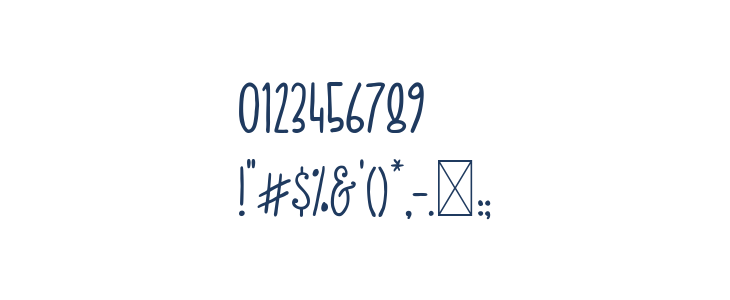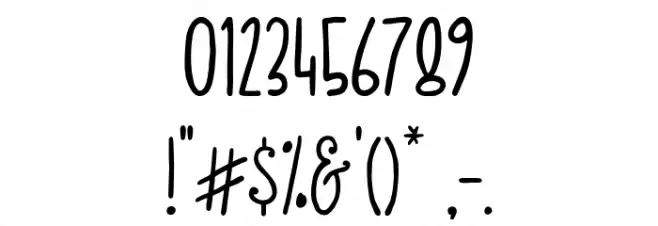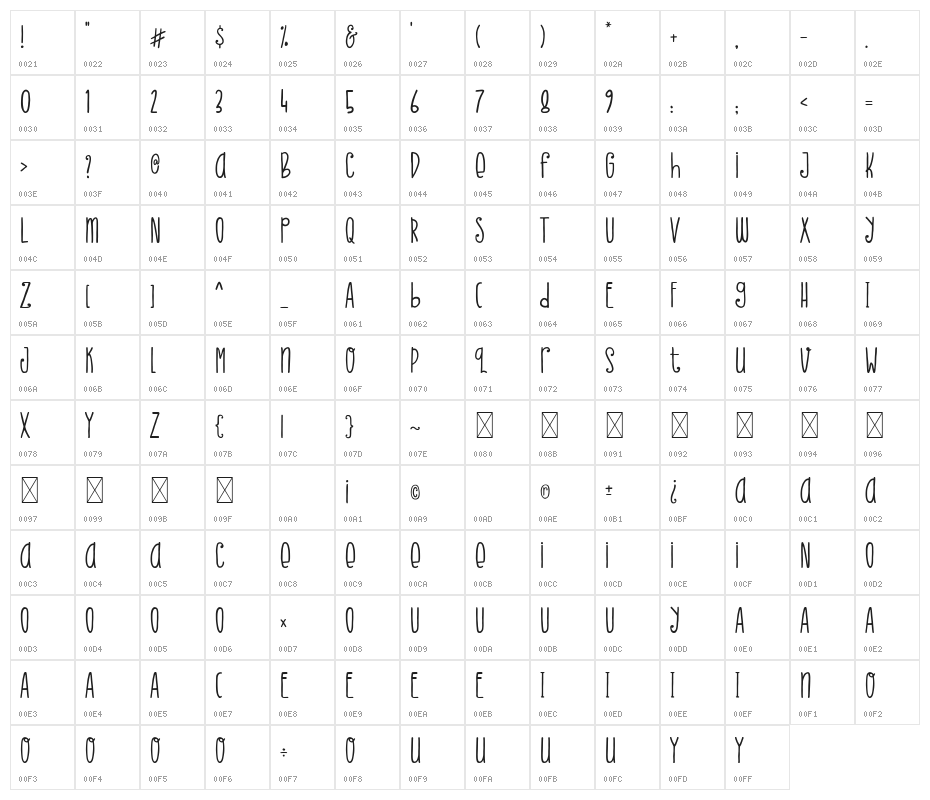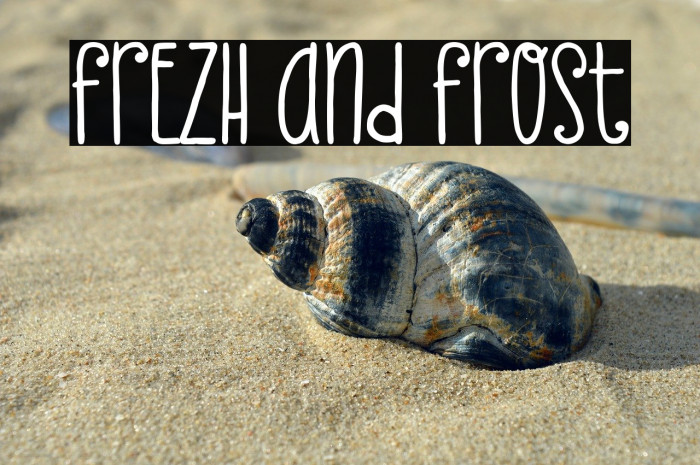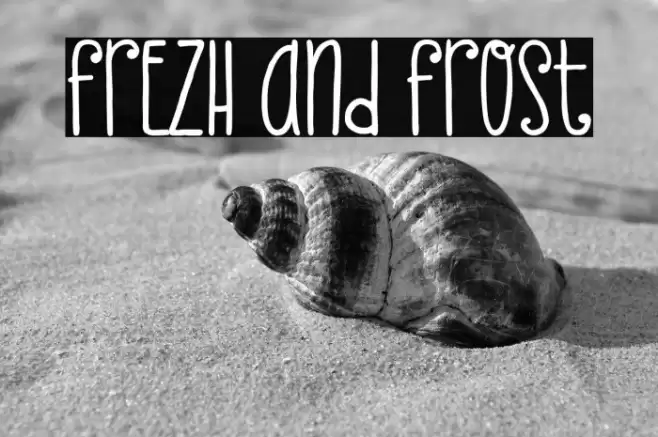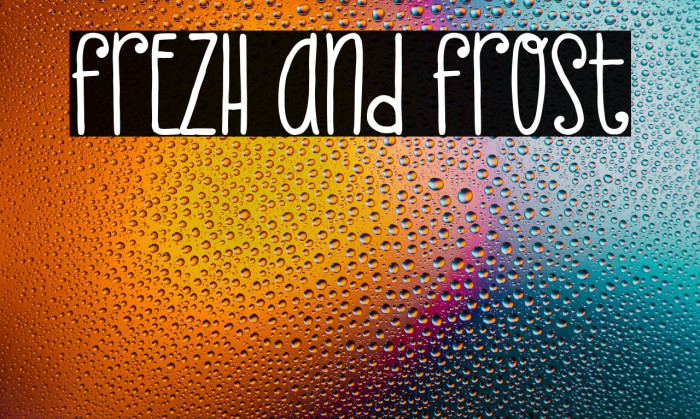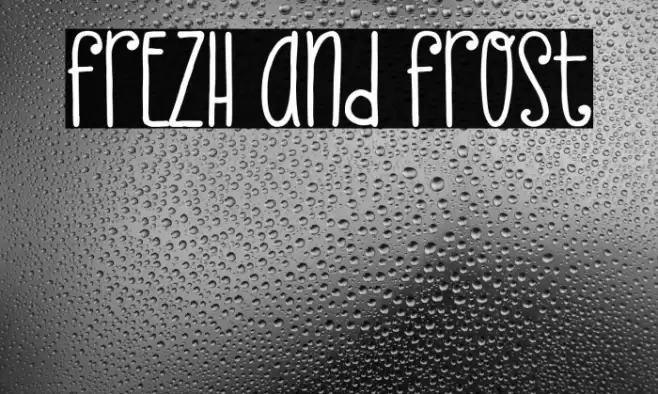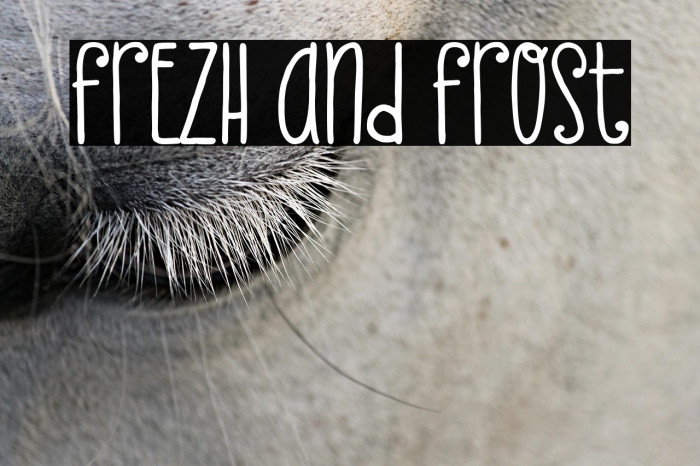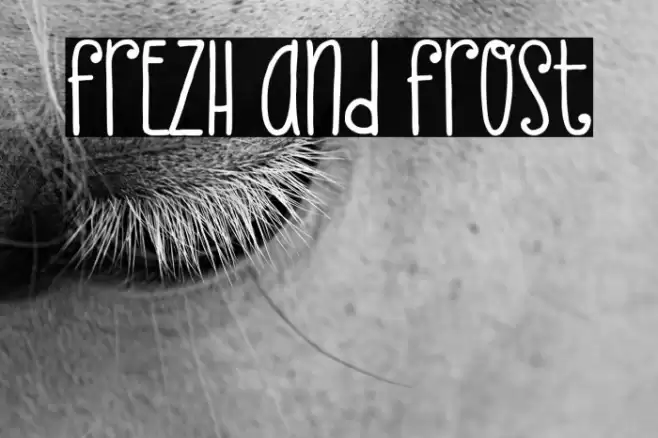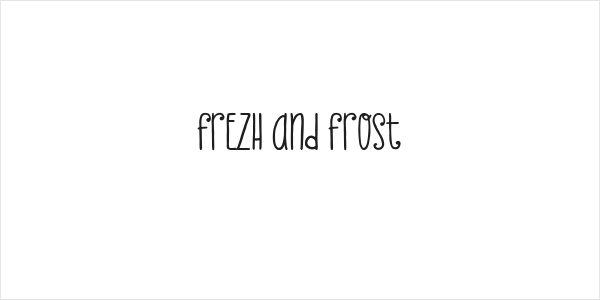
Frezh And Frost Font
Frezh And Frost Description
This font features a playful and whimsical style with elongated, narrow characters that have a hand-drawn feel. The letters are slightly irregular, adding to the casual and friendly appearance. The uppercase and lowercase letters maintain a consistent height, creating a uniform look. The numbers and special characters follow the same design principles, ensuring cohesion across all elements. The strokes are smooth and rounded, contributing to the approachable and informal aesthetic. This font is ideal for projects that require a touch of personality and charm.
| Proposed Projects | Ideal for children's books, greeting cards, playful branding, and casual invitations. |